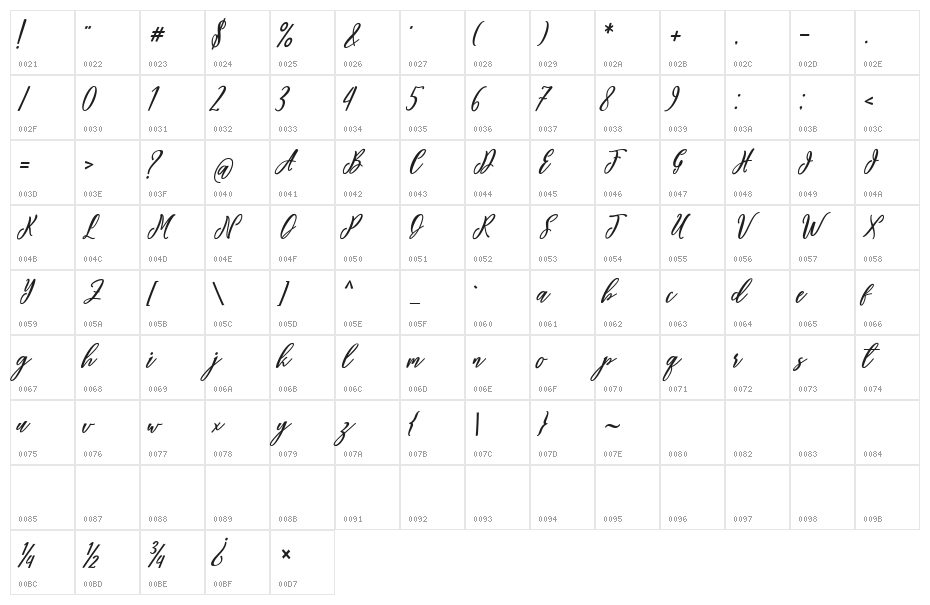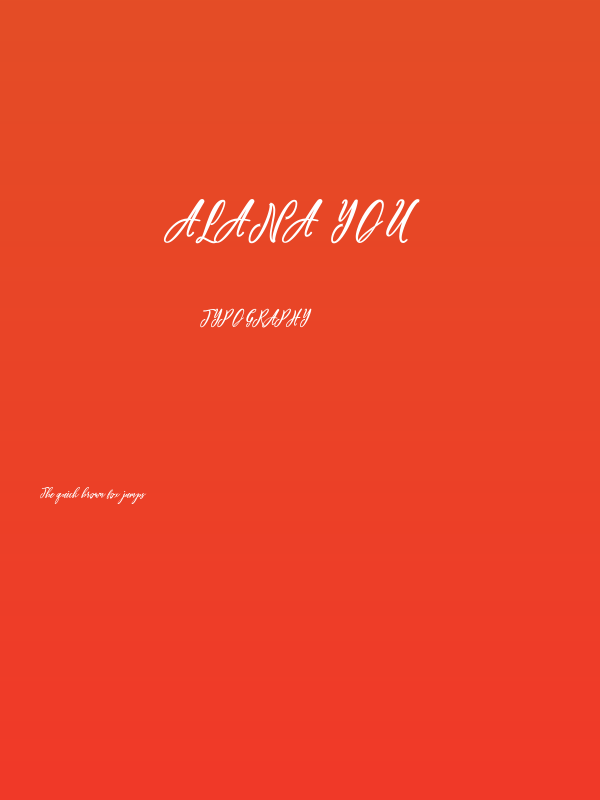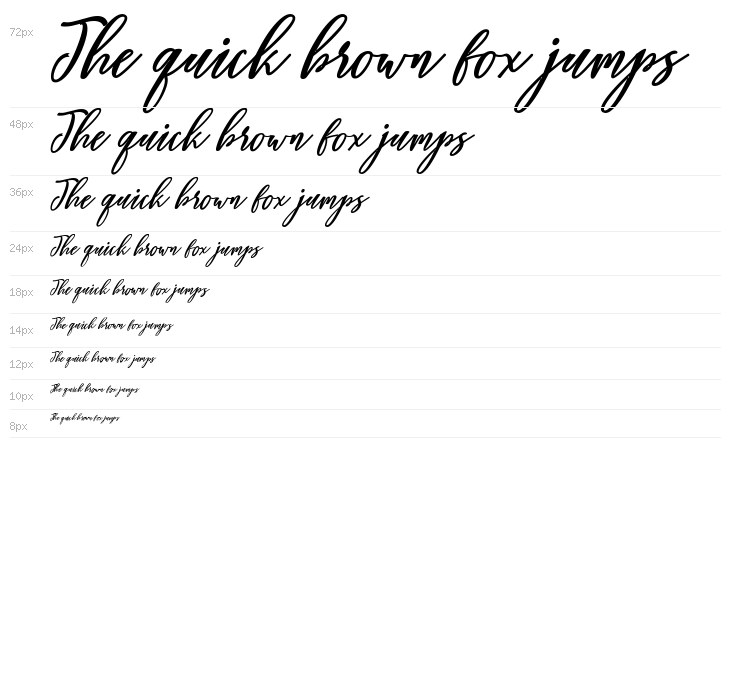
alana you Font
alana you Description
This font exudes a sense of elegance and fluidity, characterized by its cursive, handwritten style. The letters are connected in a flowing manner, giving it a natural and organic feel. The strokes are smooth and consistent, with a slight slant that enhances its graceful appearance. The uppercase letters are bold and prominent, while the lowercase letters maintain a delicate balance, ensuring readability. The numerals and special characters are designed to complement the overall aesthetic, making it versatile for various applications. Its artistic flair makes it suitable for creative projects that require a personal touch.
| Overall Style | Elegant, Artistic |
| Use Case | Logos, Invitations, Personal projects |
| Proposed Projects | Ideal for wedding invitations, greeting cards, branding, and personal projects that require a touch of elegance. |